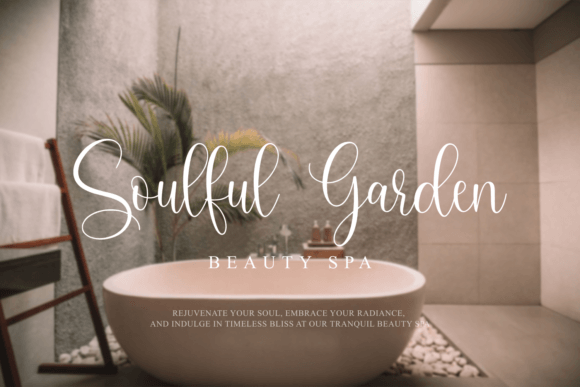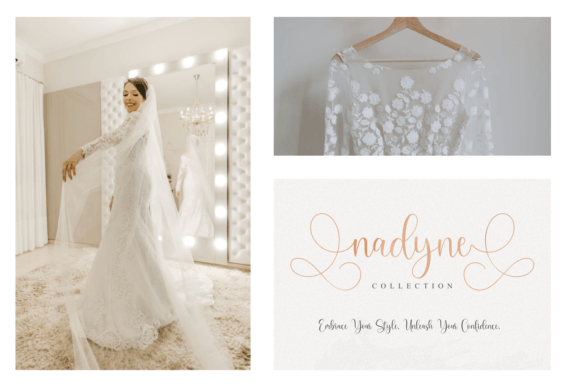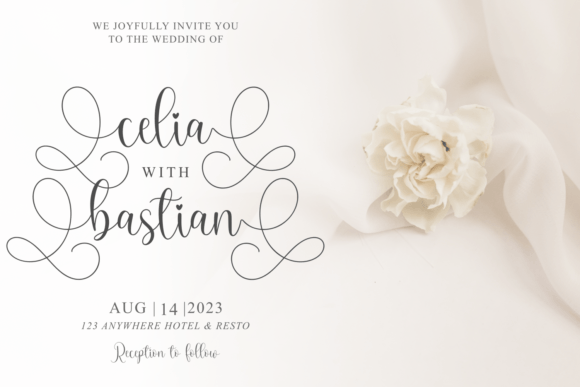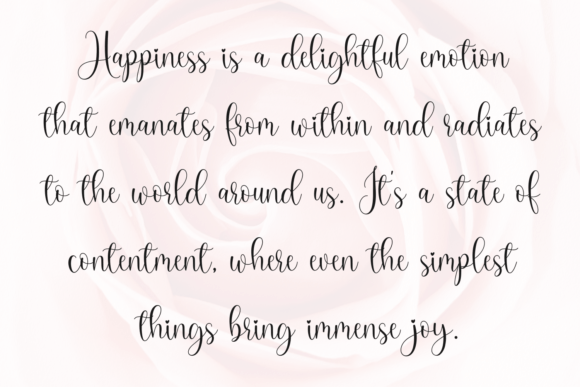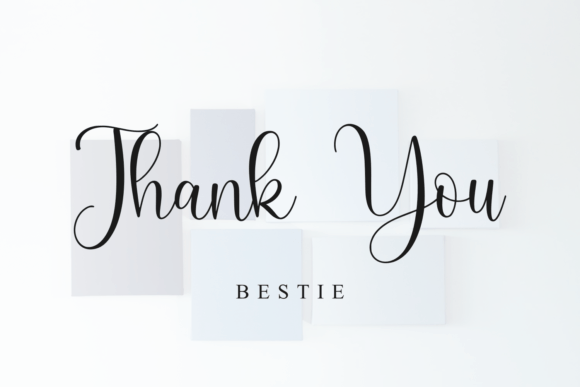
Introducing Harmony Font: Elevate Your Designs with Elegance and Sophistication
In the world of typography, fonts play a crucial role in conveying the tone and personality of a design. For projects that demand a touch of sophistication and refinement, Harmony Font is an excellent choice. This elegant script font is characterized by its delicate thin strokes, exuding a sense of poise and luxury. In this article, we’ll explore the features and benefits of Harmony Font, and how it can elevate your designs to new heights.
The Characteristics of Harmony Font
Harmony Font is a beautifully crafted script font that boasts a range of distinctive characteristics. Its delicate thin strokes give it a light and airy feel, while its flowing lines and subtle curves create a sense of movement and fluidity. The font’s elegant design makes it perfect for projects that require a touch of sophistication, such as luxury branding, high-end packaging, and refined editorial designs.
One of the standout features of Harmony Font is its harmonious balance between elegance and readability. The font’s designer has carefully crafted each glyph to ensure that it is not only visually stunning but also easy to read. This makes Harmony Font an excellent choice for body text, headlines, and titles, as it can be used to create a cohesive and sophisticated look throughout a design.
Harmony Font is PUA (Private Use Area) encoded, which means that you can access all glyphs and swashes with ease. PUA encoding allows designers to access a range of additional characters, including ligatures, ornaments, and swashes, which can be used to add an extra layer of creativity and sophistication to a design.
With Harmony Font, you can easily access these additional characters using a Unicode font viewer or a software that supports PUA encoding. This means that you can experiment with different combinations of glyphs and swashes to create a unique and eye-catching design that stands out from the crowd.
Benefits of Using Harmony Font
So, why choose Harmony Font for your next design project? Here are just a few benefits of using this elegant script font:
- Elegance and sophistication: Harmony Font exudes a sense of luxury and refinement, making it perfect for high-end designs.
- Readability: The font’s harmonious balance between elegance and readability makes it suitable for body text, headlines, and titles.
- Creative flexibility: With PUA encoding, you can access a range of glyphs and swashes to add an extra layer of creativity to your design.
- Timeless charm: Harmony Font has a timeless quality that will ensure your design remains stylish and relevant for years to come.
Design Applications for Harmony Font
Harmony Font is a versatile design asset that can be used in a range of applications, including:
- Luxury branding: Use Harmony Font to create a sophisticated and luxurious brand identity.
- Editorial design: The font’s elegance and readability make it perfect for high-end editorial designs, such as magazines and newspapers.
- Packaging design: Harmony Font can be used to create eye-catching and sophisticated packaging designs.
- Web design: The font’s legibility and elegance make it suitable for use on websites, particularly those with a luxury or high-end focus.
In conclusion, Harmony Font is an elegant script font that offers a range of benefits and design applications. Its delicate thin strokes, flowing lines, and subtle curves create a harmonious balance between elegance and readability, making it perfect for projects that demand a touch of sophistication and refinement. With PUA encoding, you can easily access a range of glyphs and swashes to add an extra layer of creativity to your design. Whether you’re a designer, crafter, or simply someone who appreciates beautiful typography, Harmony Font is an excellent choice for your next design project.